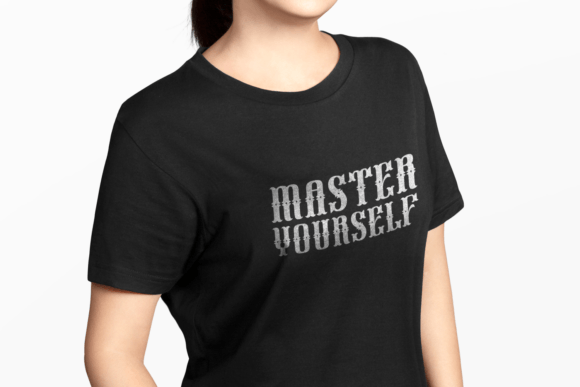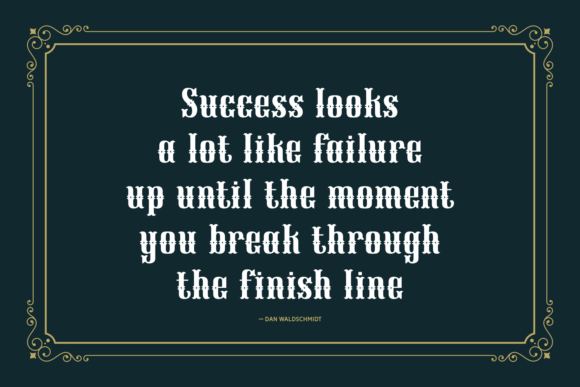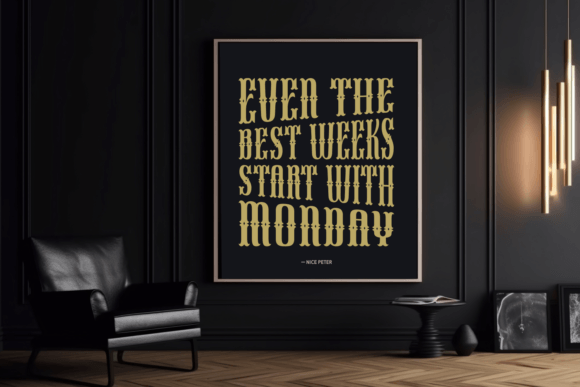
Brodies Blackie Font: A Bold Blackletter Typeface for Vintage Designs and Gothic Themes
In the world of typography, few fonts evoke the same level of drama and elegance as Brodies Blackie. This bold blackletter font is designed to make a statement, with striking, ornate details and sharp, angular strokes that command attention. Whether you’re a designer looking for a unique font for your next project or a crafter seeking inspiration for your next creation, Brodies Blackie is an excellent choice.
What is Brodies Blackie?
Brodies Blackie is a bold blackletter font that blends traditional medieval aesthetics with modern flair. Its striking, ornate details and sharp, angular strokes create a distinctive and dramatic typeface that’s perfect for a variety of design applications. From vintage designs and tattoos to logos and gothic-inspired themes, Brodies Blackie is a versatile font that can add a touch of elegance and sophistication to any project.
Key Features of Brodies Blackie
- Bold and Dramatic: Brodies Blackie is a bold font that’s designed to make a statement. Its sharp, angular strokes and ornate details create a dramatic effect that’s sure to grab attention.
- Traditional Medieval Aesthetics: The font’s blackletter style is inspired by traditional medieval typography, giving it a timeless and classic look.
- Modern Flair: Despite its traditional roots, Brodies Blackie has a modern edge that sets it apart from other blackletter fonts.
- Highly Legible: Despite its ornate details, Brodies Blackie is highly legible, making it perfect for use in a variety of design applications.
Uses for Brodies Blackie
Brodies Blackie is a versatile font that can be used in a variety of design applications. Here are some ideas to get you started:
- Vintage Designs: Brodies Blackie is perfect for creating vintage-inspired designs, such as posters, flyers, and brochures.
- Tattoos: The font’s bold, dramatic style makes it a popular choice for tattoos, particularly those with a gothic or medieval theme.
- Logos: Brodies Blackie can be used to create striking logos for businesses, particularly those in the creative or entertainment industries.
- Gothic-Inspired Themes: The font’s blackletter style and ornate details make it perfect for use in gothic-inspired themes, such as Halloween designs or dark fantasy art.
Tips for Using Brodies Blackie
Here are some tips for getting the most out of Brodies Blackie:
- Use it Sparingly: Due to its bold, dramatic style, Brodies Blackie is best used sparingly. Use it as a headline font or for emphasis, rather than for body text.
- Pair it with a Simple Font: To create visual interest, pair Brodies Blackie with a simple font, such as a sans-serif or serif font.
- Experiment with Colors: Brodies Blackie looks great in a variety of colors, from bold and bright to muted and subtle. Experiment with different colors to find the one that works best for your design.
Brodies Blackie is a bold, dramatic font that’s perfect for designers and crafters looking to add a touch of elegance and sophistication to their projects. With its striking, ornate details and sharp, angular strokes, it’s a versatile font that can be used in a variety of design applications, from vintage designs and tattoos to logos and gothic-inspired themes. Whether you’re looking to create a statement piece or simply want to add some visual interest to your design, Brodies Blackie is an excellent choice.